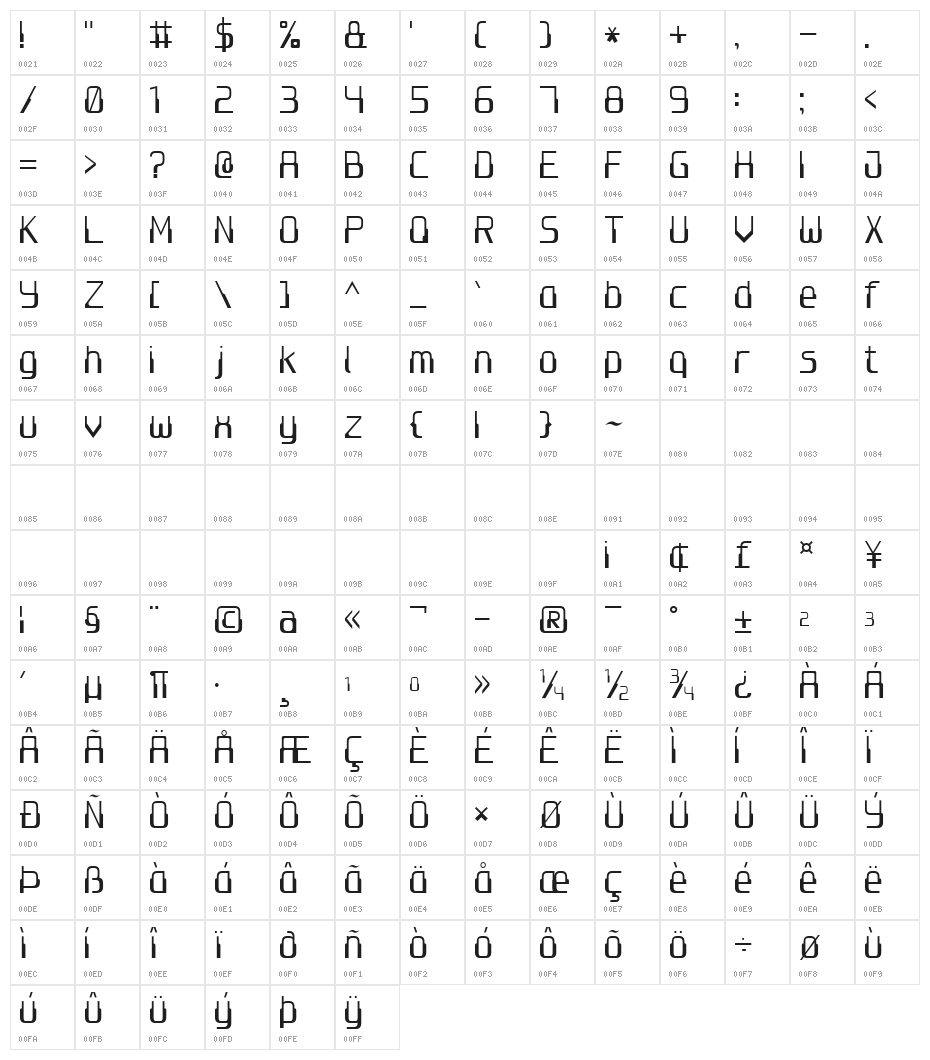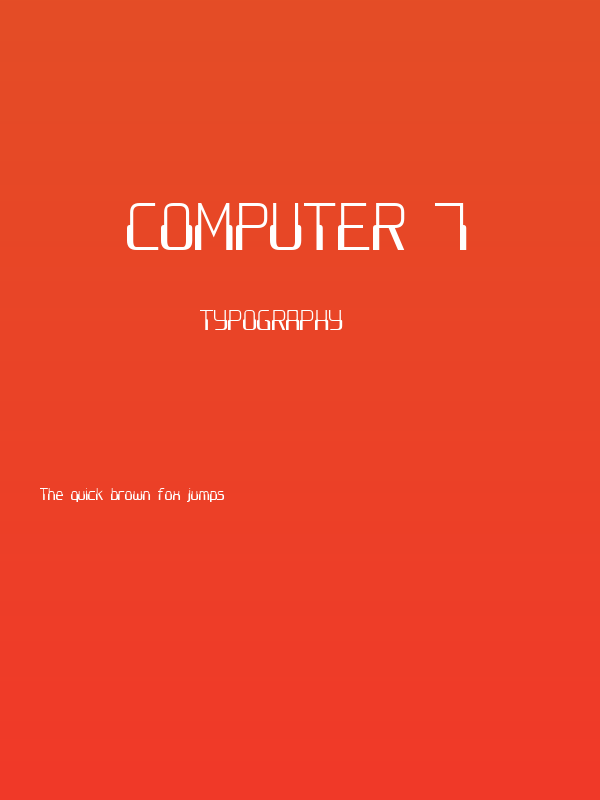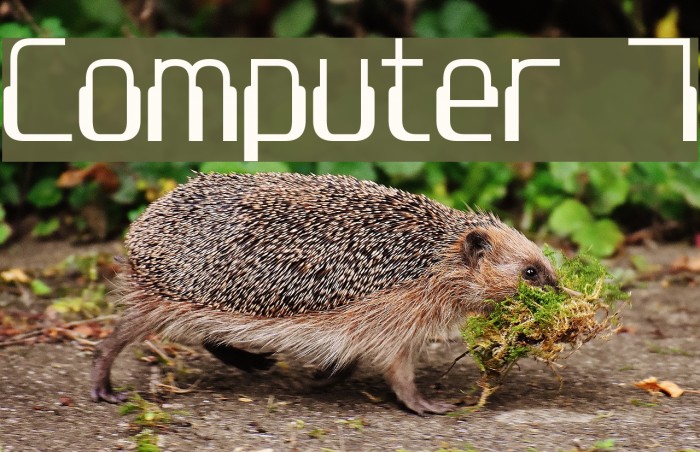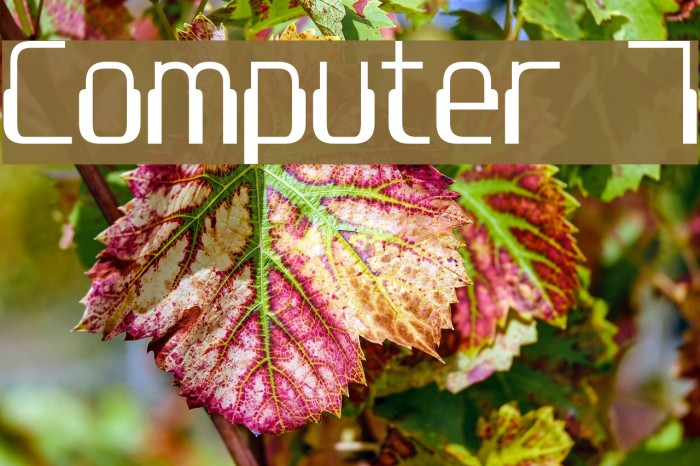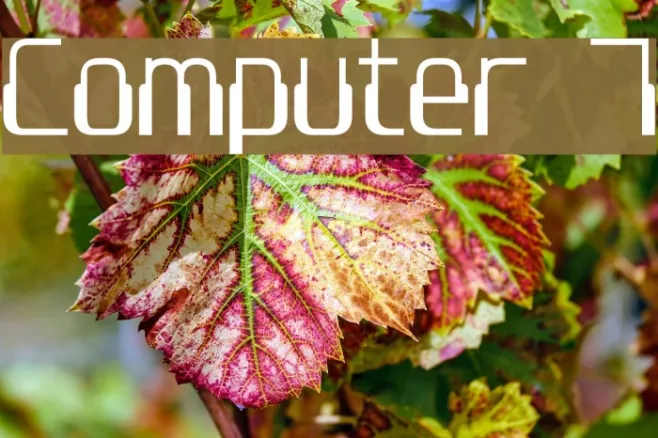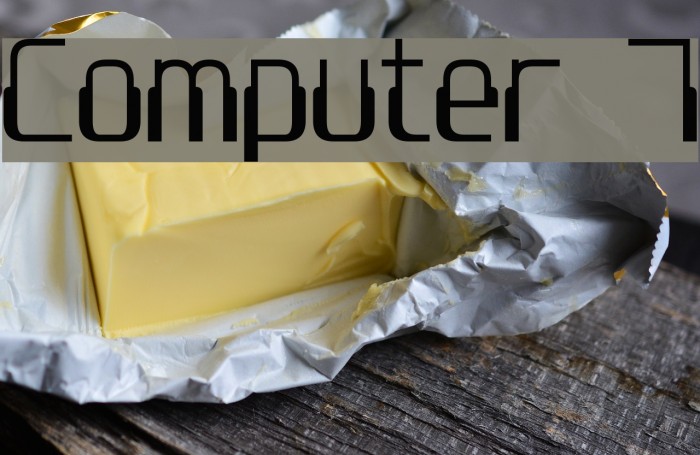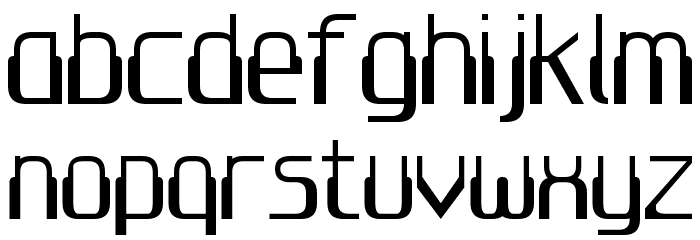
Computer 7 Font
Computer 7 Description
This font features a modern and futuristic design with a geometric structure. The characters are composed of clean, straight lines and rounded corners, creating a sleek and contemporary appearance. The uppercase and lowercase letters maintain a consistent height, contributing to a uniform and balanced look. The numerals and special characters follow the same design principles, ensuring a cohesive style throughout. The font's minimalistic approach makes it suitable for digital and tech-related projects, where clarity and precision are essential. Its unique style stands out, making it ideal for branding, advertising, and creative design projects.
| Use Case | Logos, Headlines, Digital interfaces |
| Proposed Projects | Ideal for tech branding, digital interfaces, advertising, and creative design projects. |